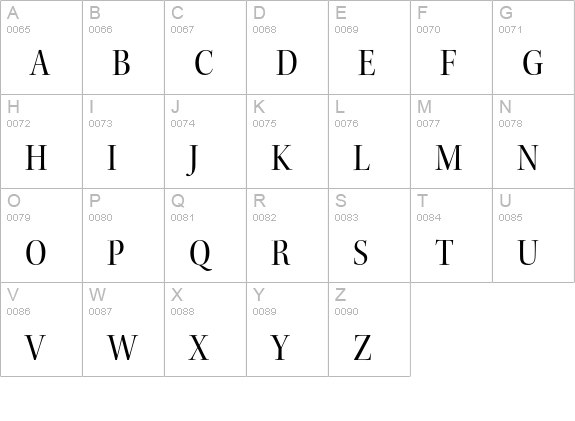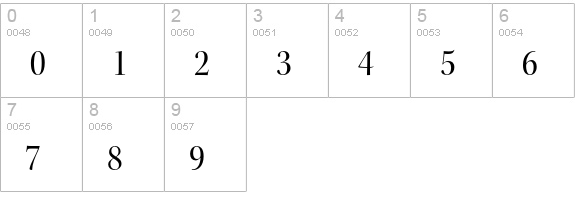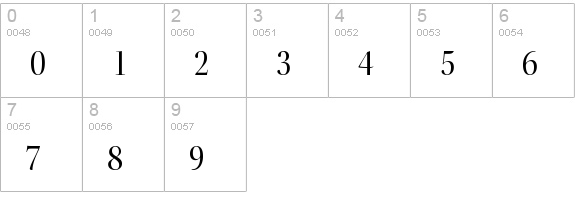
Kepler Std Semicondensed Display Font Details
Kepler Std Semicondensed Display font is a stunning typography masterpiece that effortlessly combines elegance and modernity. Its sleek and condensed design makes it perfect for headlines, titles, and display purposes. The meticulously crafted letterforms exude a sense of professionalism and sophistication, capturing attention and leaving a lasting impression. With its precise and refined strokes, Kepler Std Semicondensed Display font brings a sense of clarity and legibility, ensuring that your message is conveyed with utmost precision. Each character is meticulously designed to maintain consistency in spacing and proportion, resulting in a harmonious and balanced typeface. This font is not only visually captivating, but it also offers a seamless reading experience. The spacing between letters and words is carefully optimized to enhance readability, ensuring that your content is effortlessly understood by your audience. What sets Kepler Std Semicondensed Display font apart is its versatility and adaptability. Whether you are designing a corporate presentation, a magazine layout, or a website interface, this font can effortlessly elevate your design to new heights. Its timeless elegance and modern appeal make it suitable for a wide range of projects, from contemporary to classic. And the best part? Kepler Std Semicondensed Display font is free to download at FontsMarket.com. This means that you can have access to this exceptional font without any cost. It's a rare opportunity to add such a high-quality font to your collection without breaking the bank. So why wait? Download Kepler Std Semicondensed Display font today and unlock a world of design possibilities. With its impeccable style and effortless versatility, this font is sure to become an invaluable asset in your creative toolkit. Experience the power of beautiful typography and take your designs to the next level with Kepler Std Semicondensed Display font.